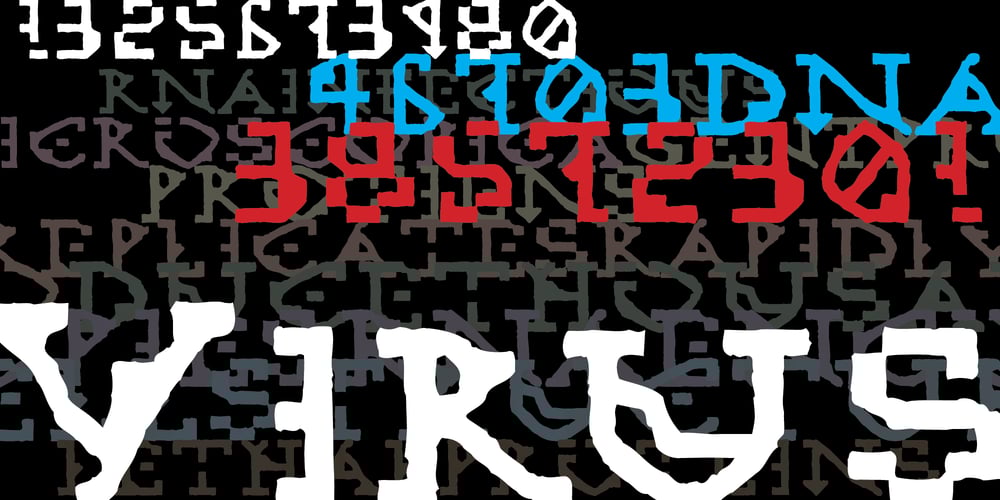
Virus Font Family was designed by Chris Costello and published by Chris Costello. Virus contains 2 styles and family package options. This design was inspired by a laser printout of a corrupt font. I designed the entire character set from a strain of seven infected letters. Virus is surprisingly legible in spite of its distortions so let your imagination run loose with this one.